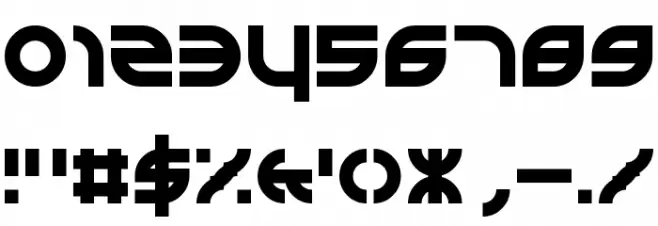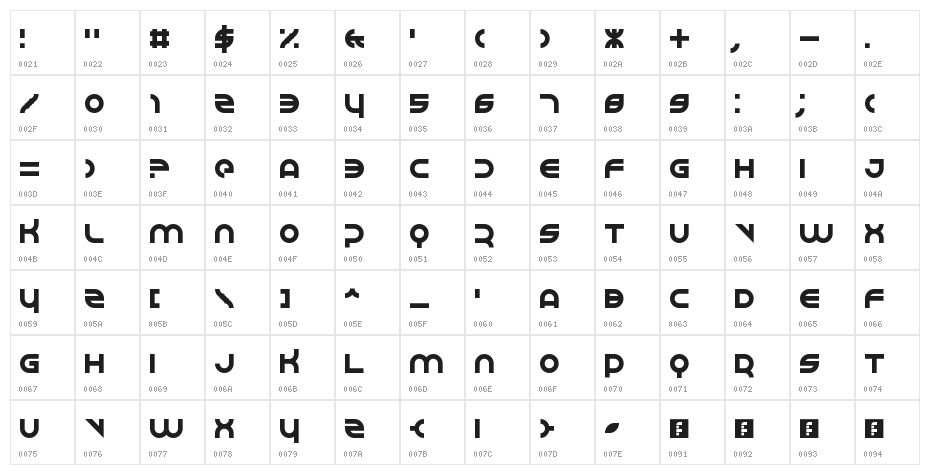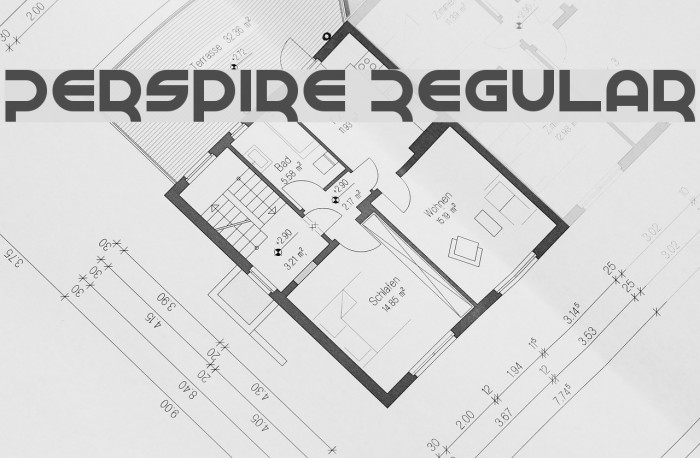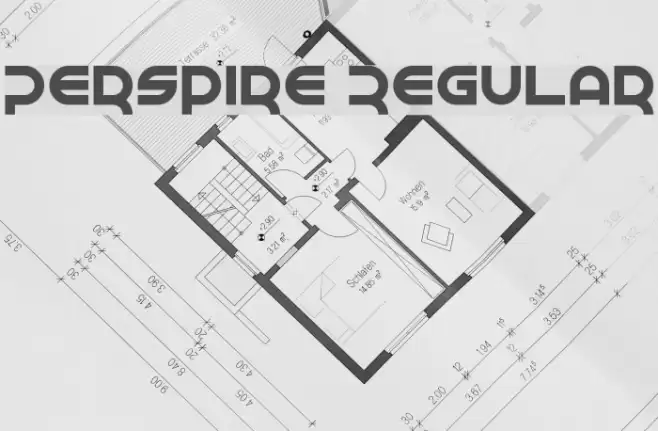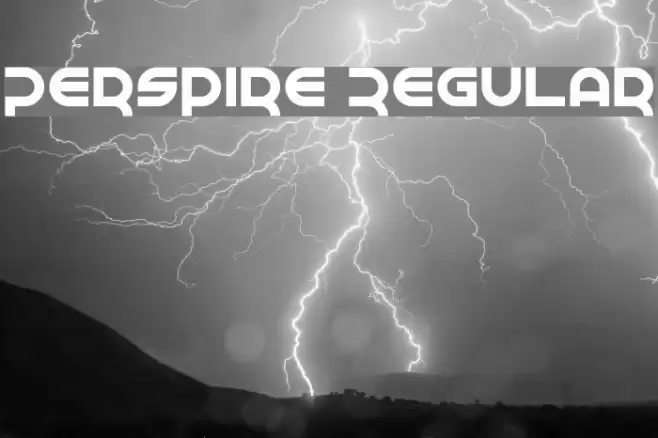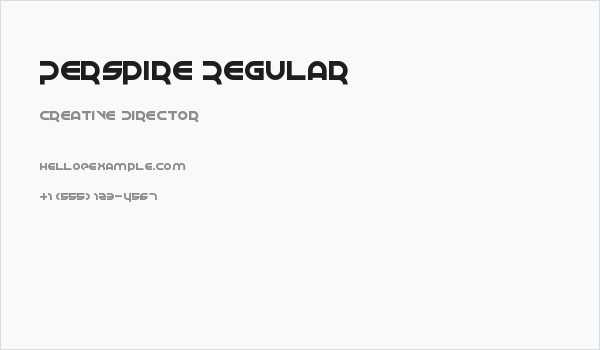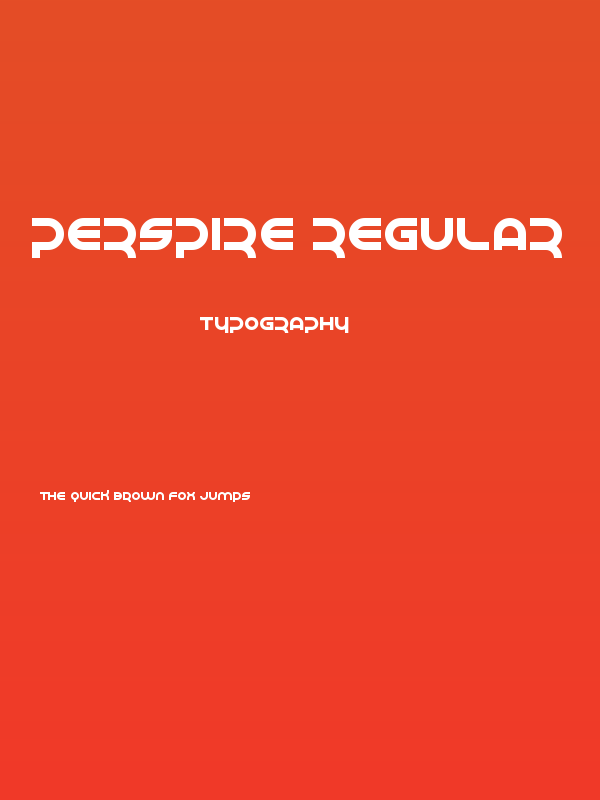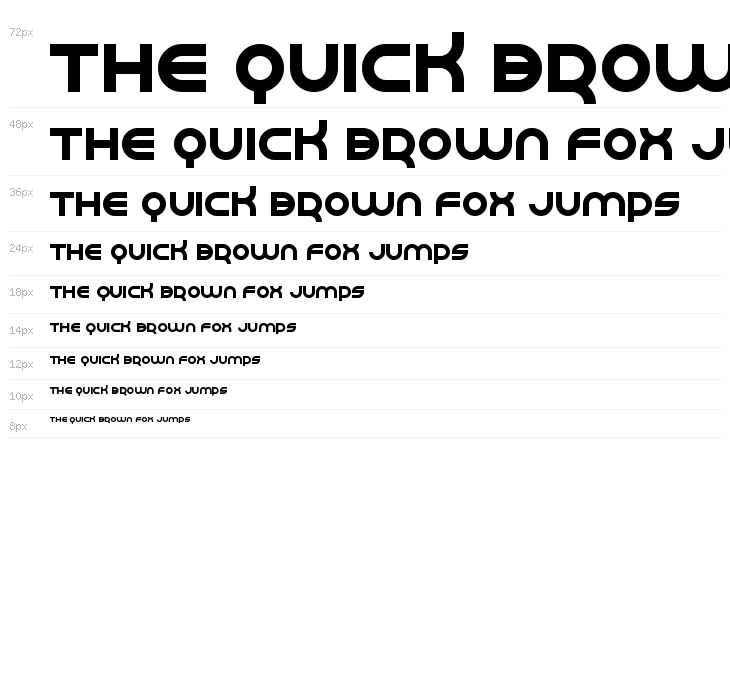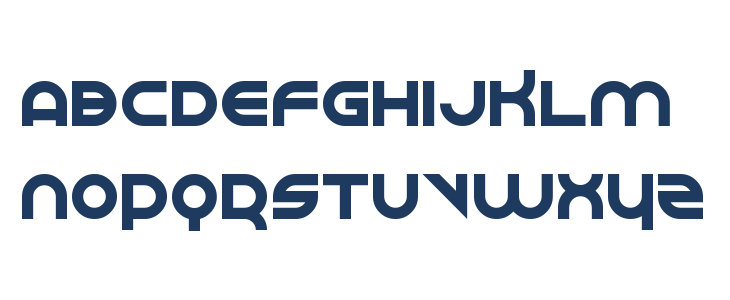
Perspire Regular Font
Perspire Regular Description
This font features a bold, geometric design with a futuristic flair. The characters are constructed with clean, straight lines and rounded edges, creating a harmonious balance between rigidity and softness. The uppercase and lowercase letters maintain a consistent height, contributing to a uniform appearance. The numerals and special characters follow the same design principles, ensuring a cohesive look across all text. The font's unique style makes it stand out, with a modern aesthetic that is both eye-catching and versatile.
| Proposed Projects | Ideal for branding, posters, and digital media projects that require a modern and futuristic touch. |